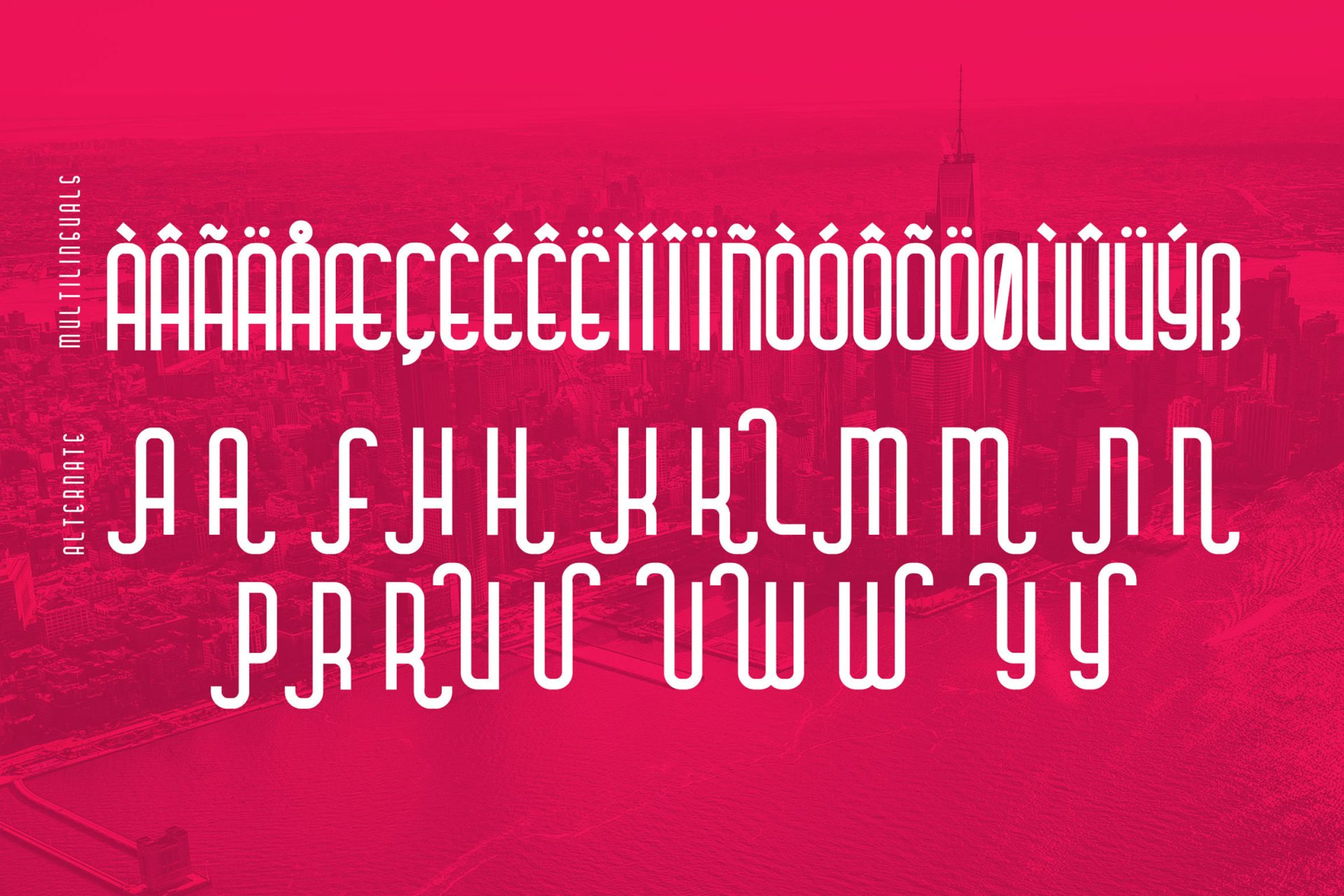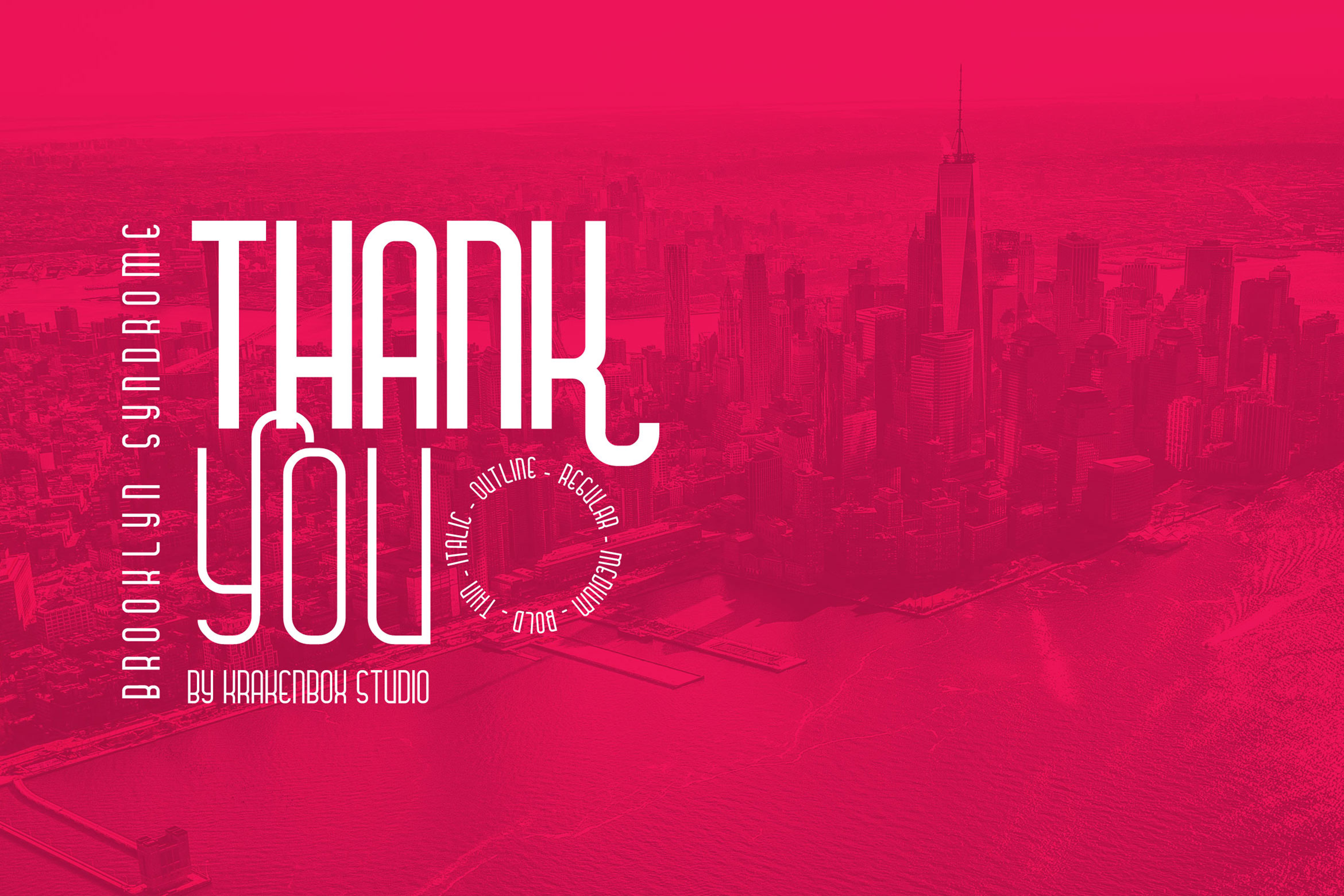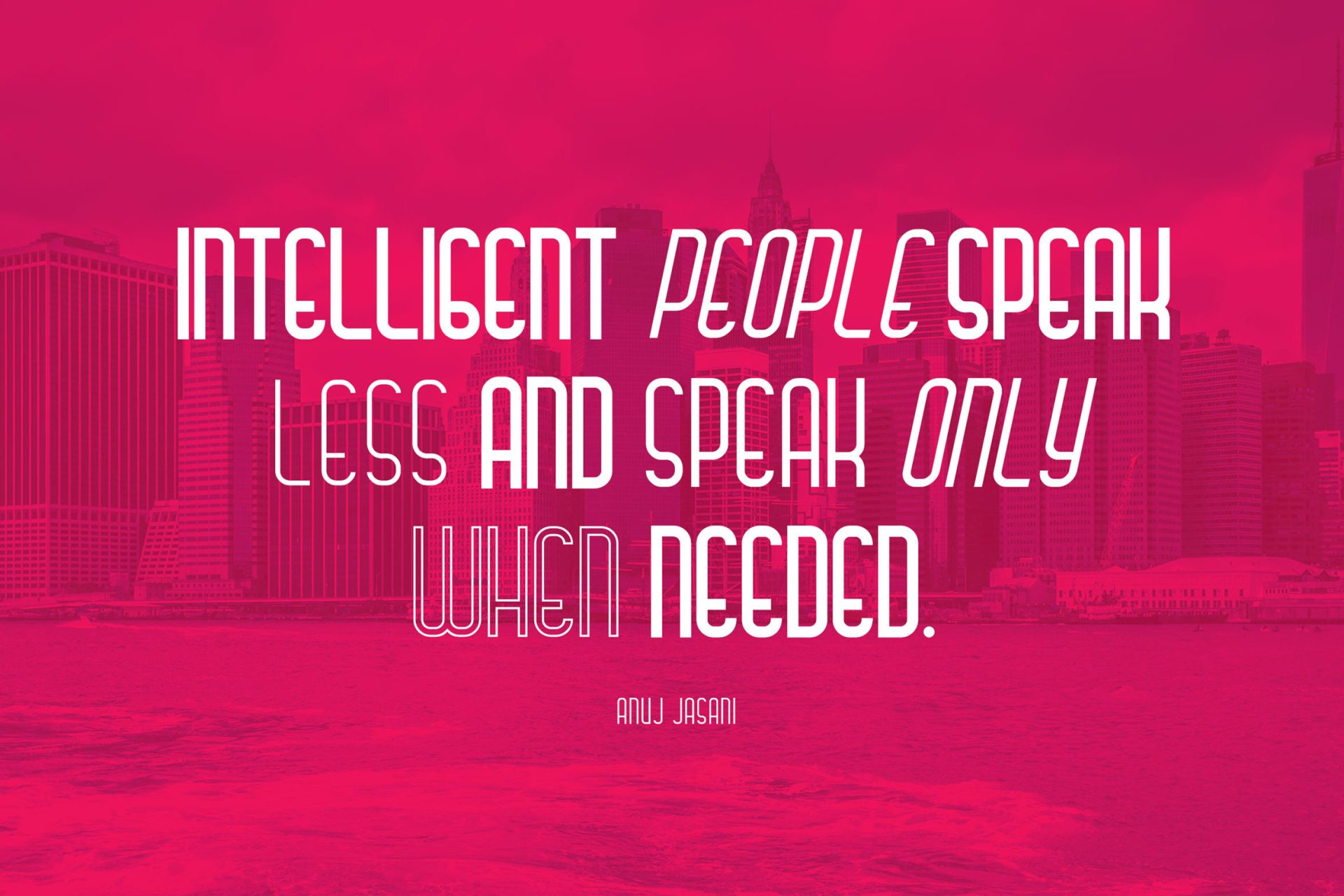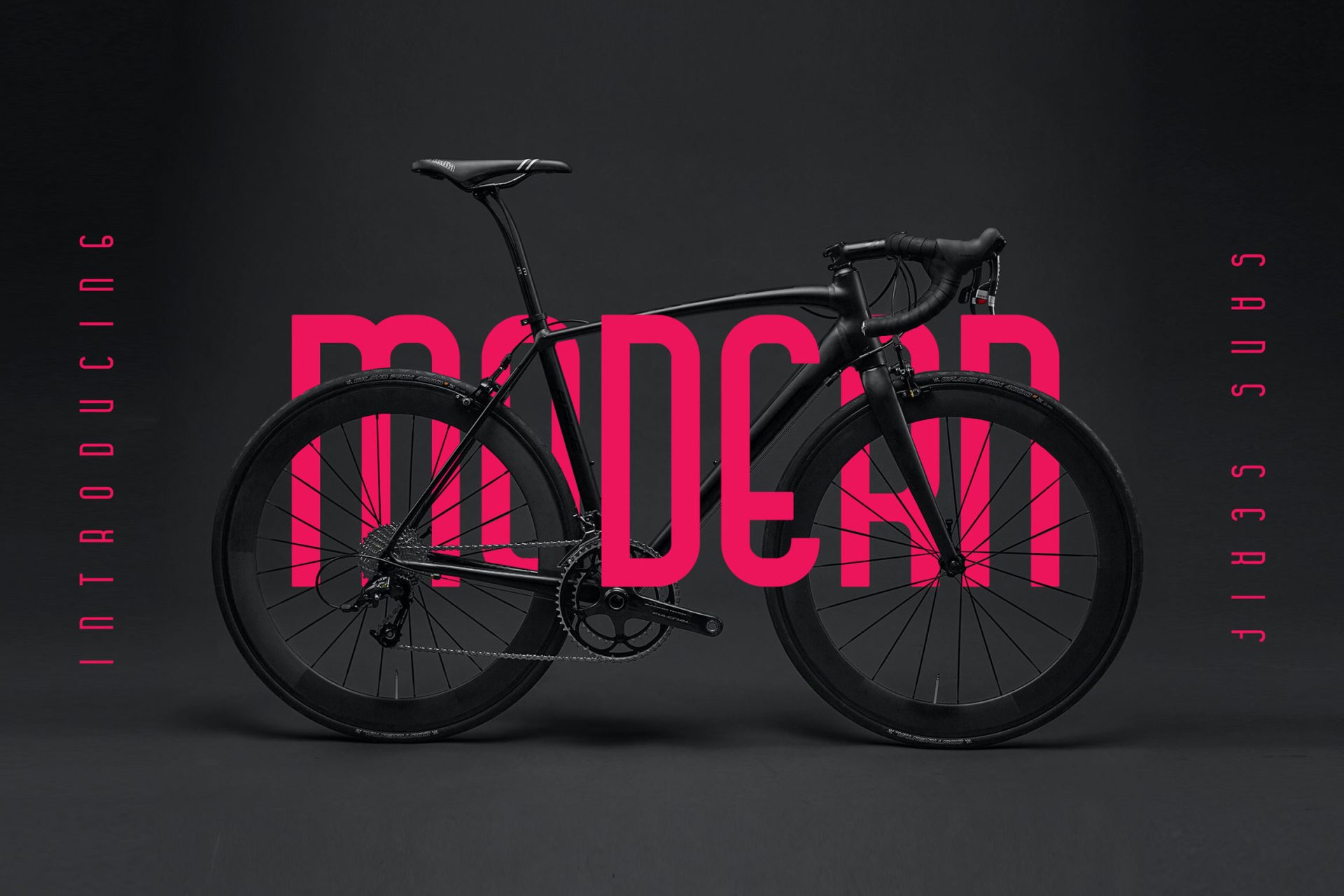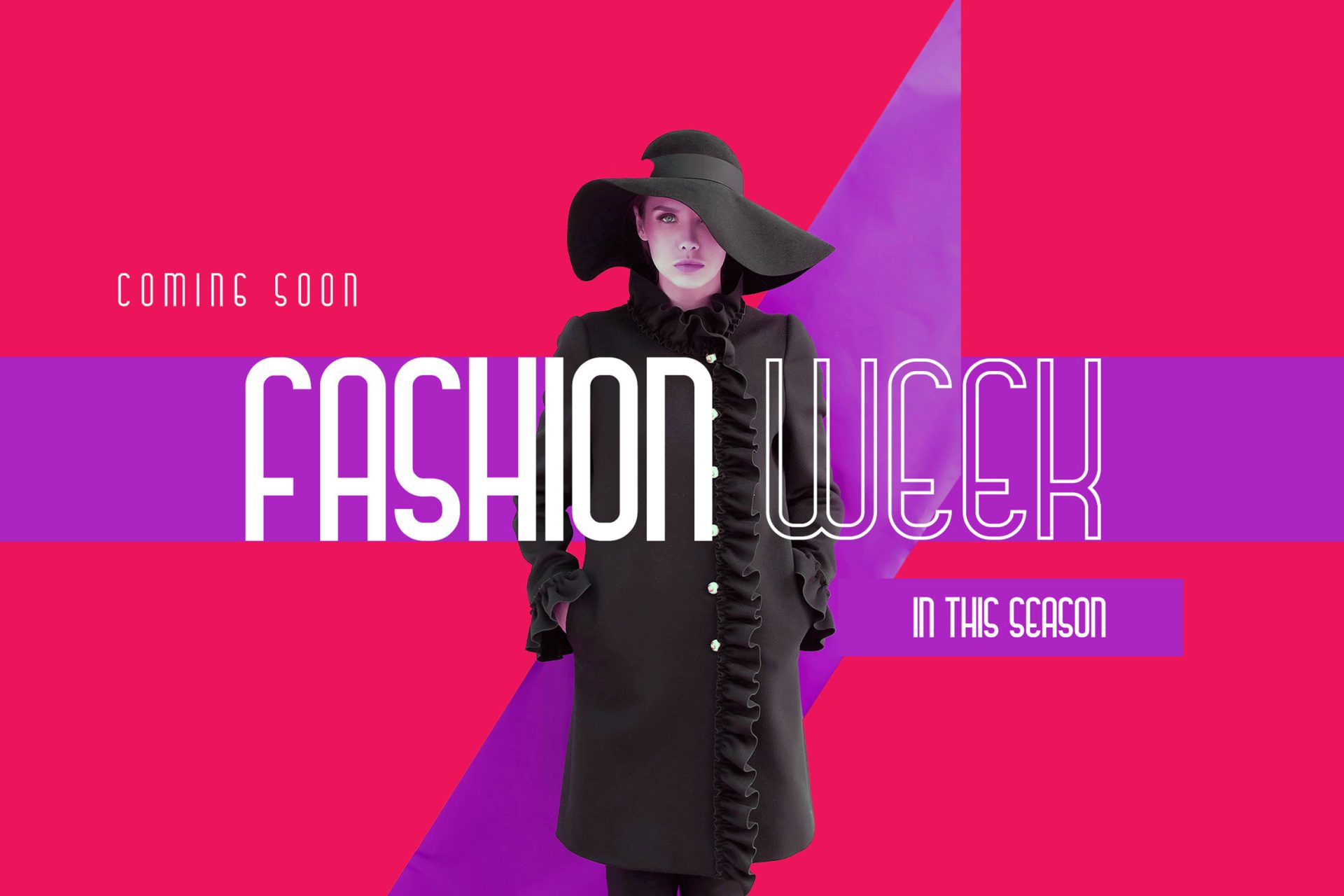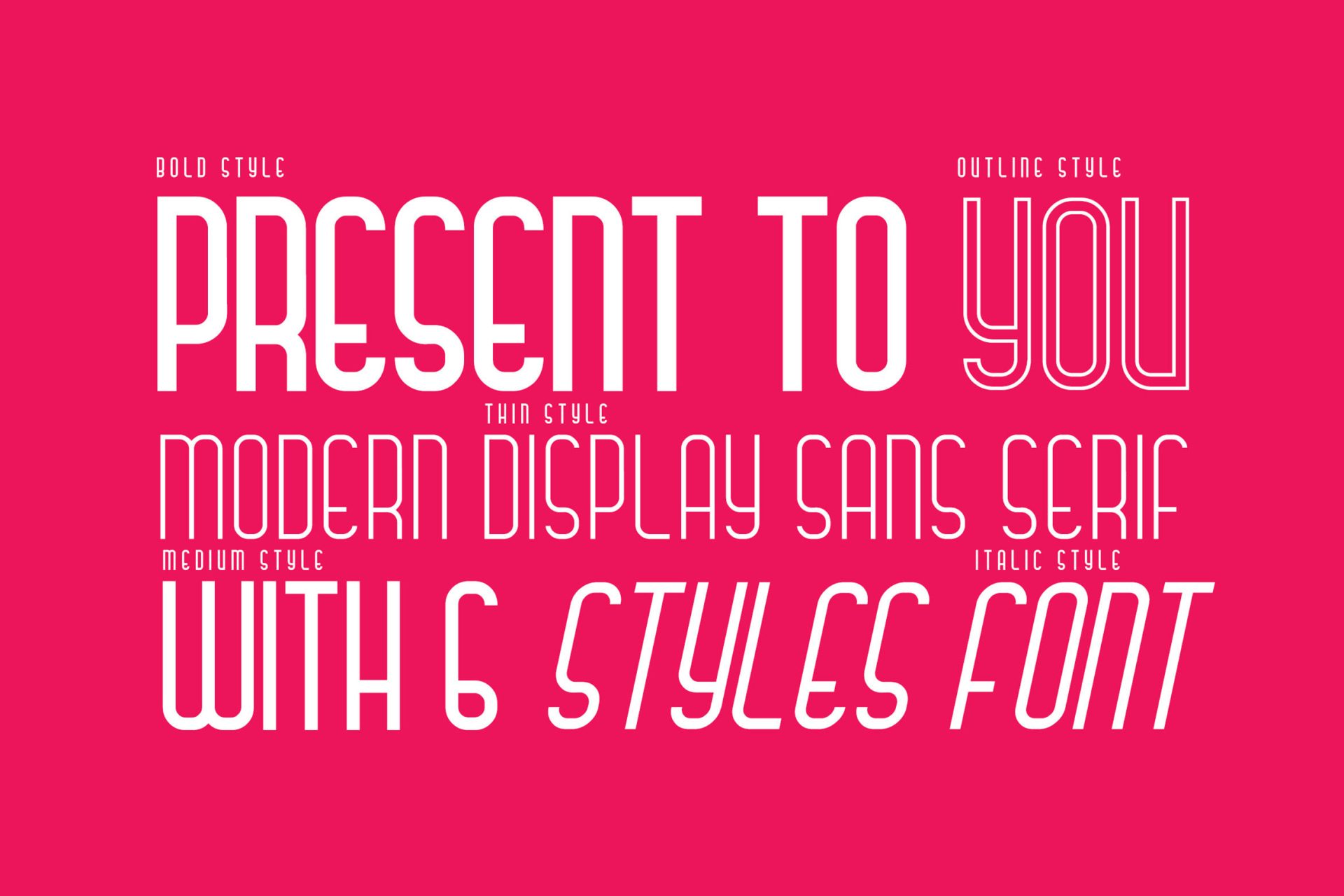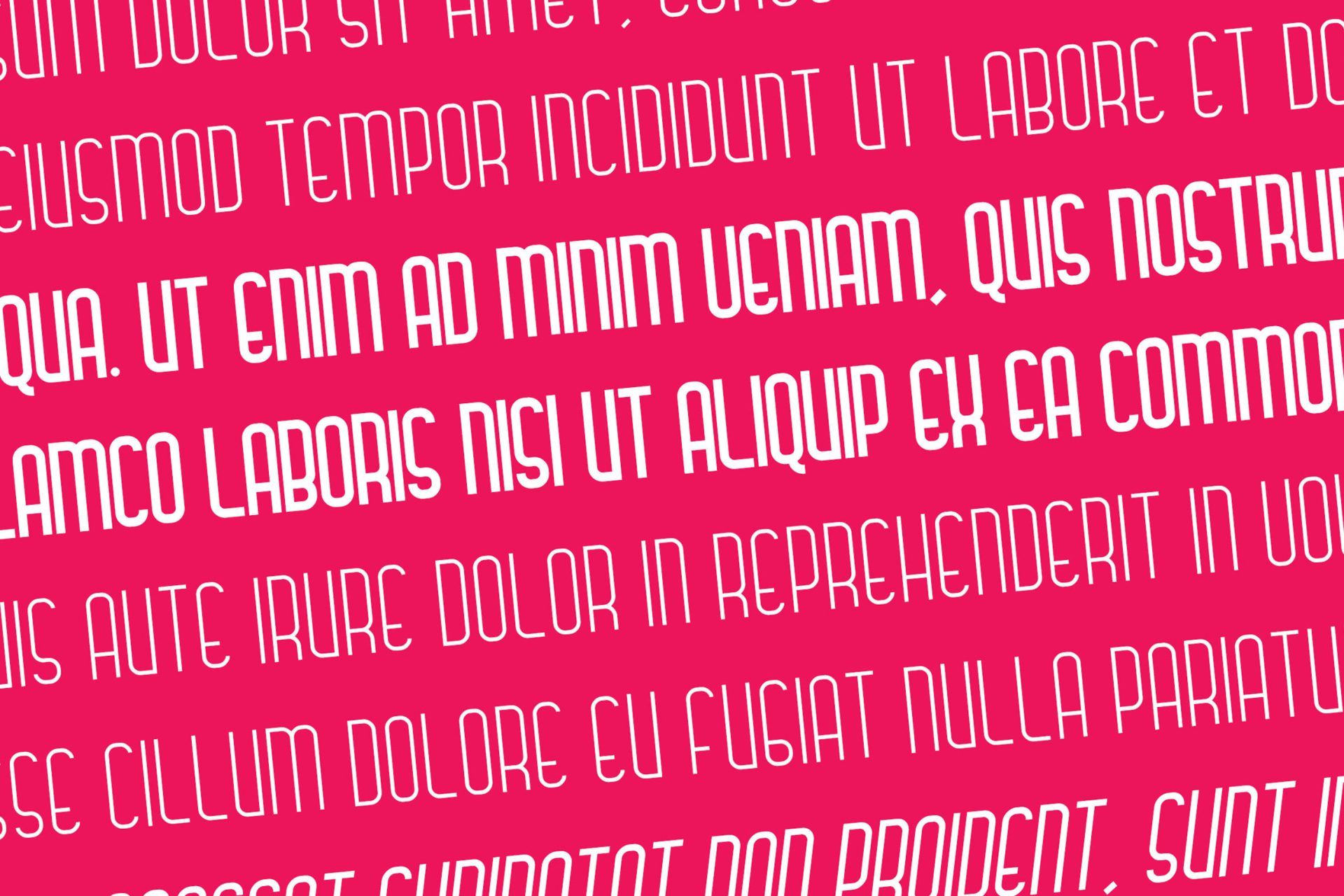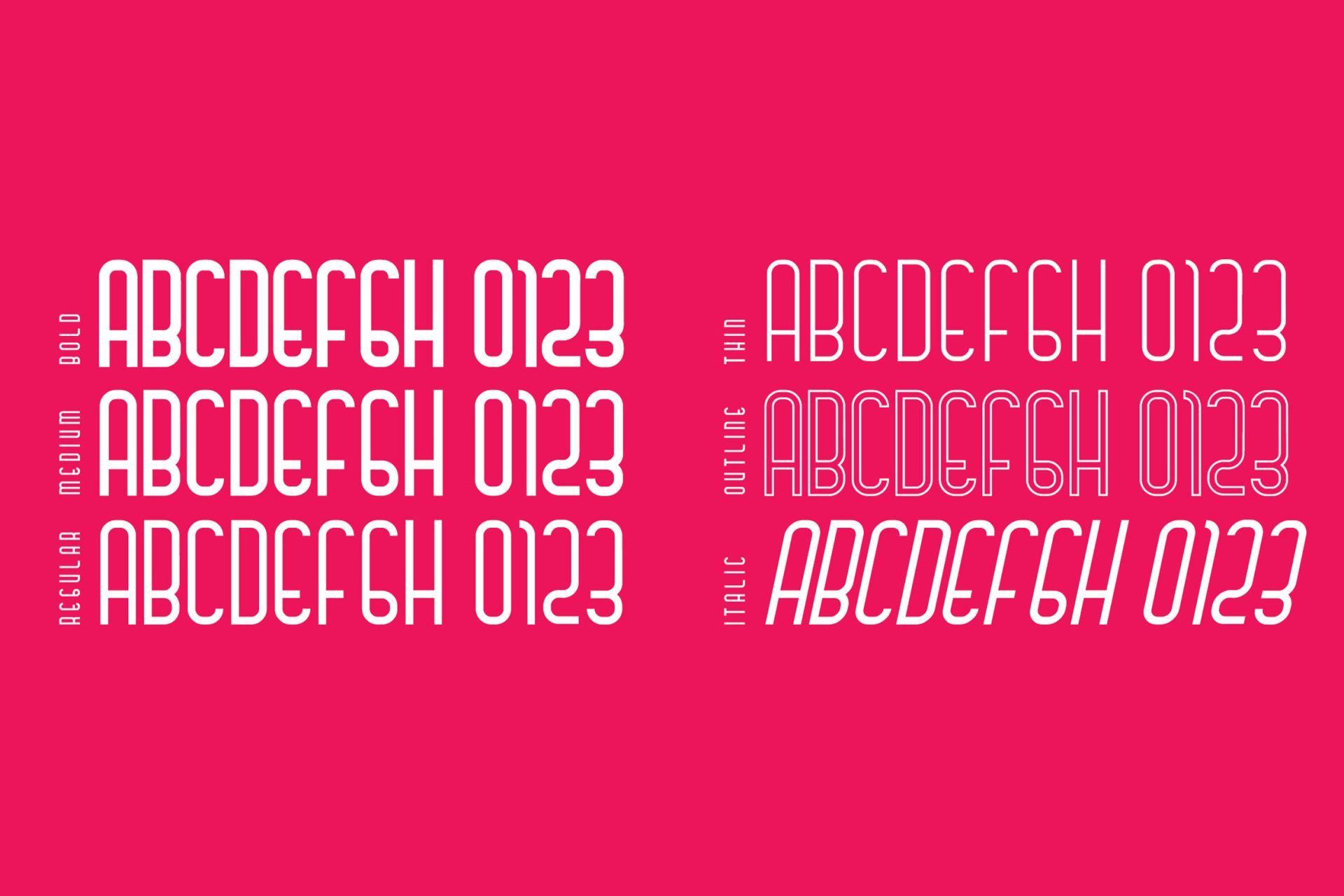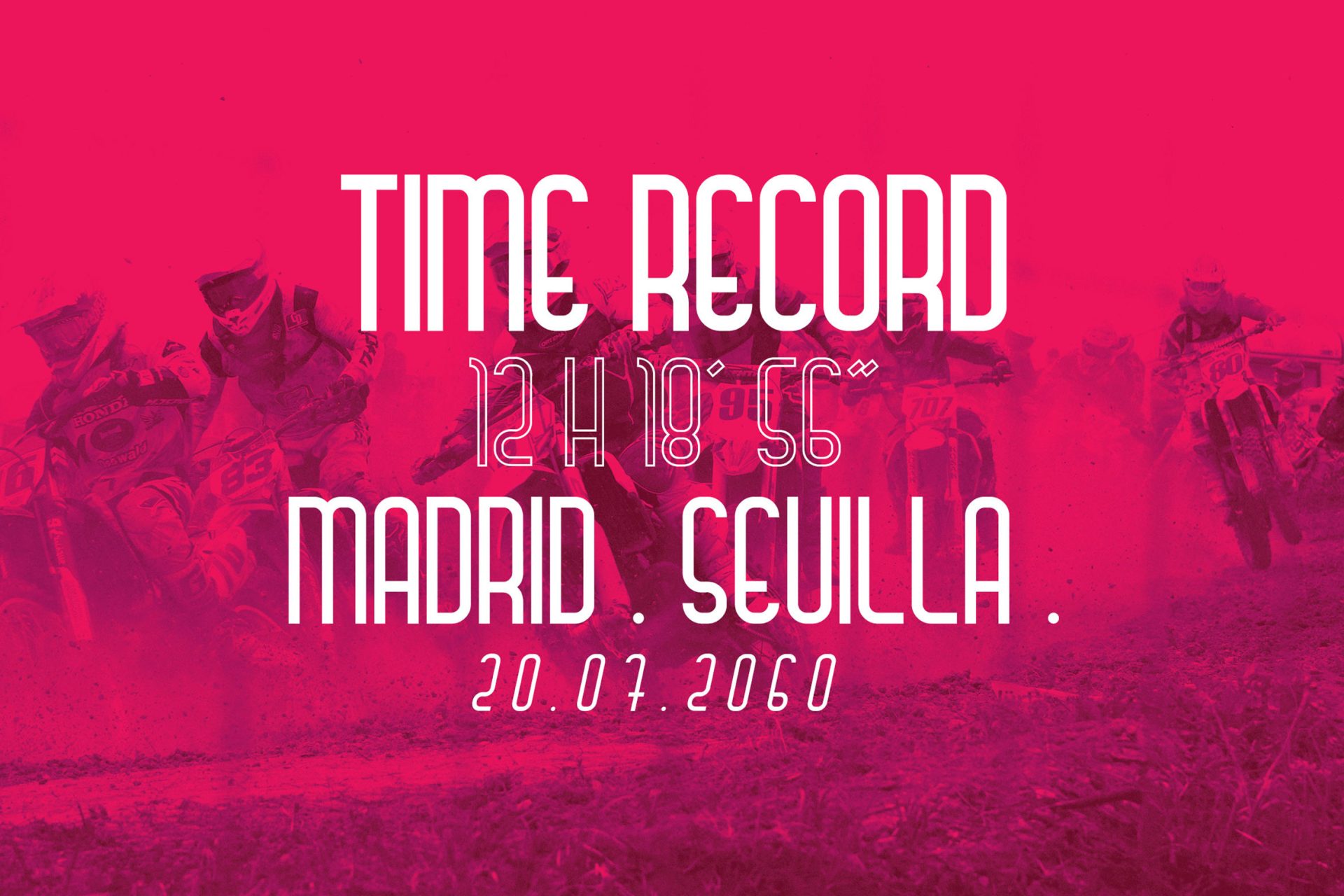
Introducing Brooklyn Syndrome – Modern Display Font by KrakenBox
Brooklyn Syndrome is a modern, cool, squared lettered and bold display font. It will elevate a wide range of crafting ideas, from cards, to branding, labels and much more.
**Brooklyn Syndrome is best for:**
– logos, branding, & Signatures.
– Flyers, Album cover, Magazine, & Advertisements.
– Website design , design blogs, & fashion.
– Quote graphics for social media.
– and also it works great for other projects.